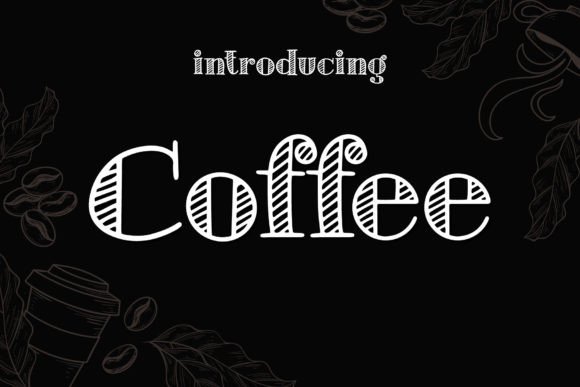
Coffee Font: The Perfect Addition to Your Creative Projects
Are you a designer or crafter looking for a unique and playful font to add to your creative projects? Look no further than the Coffee Font! This cute and fun display font is perfect for a variety of applications, from children’s themes to Halloween decorations. In this article, we’ll explore the versatility of the Coffee Font and how it can elevate your designs.
What is Coffee Font?
Coffee Font is a display font designed to add a touch of whimsy and fun to your creative projects. Its playful and cute design makes it perfect for a wide range of applications, from kids’ parties to menu events, cards, and even Halloween themes. The font’s unique design is sure to grab attention and make your projects stand out.
Uses of Coffee Font
One of the best things about Coffee Font is its versatility. Here are some ideas for using this beautiful display font:
- Children’s Themes: Coffee Font is perfect for kids’ parties, birthday cards, and other children’s-themed projects. Its playful design will delight kids and add a touch of fun to your creations.
- Menu Events: Add a touch of whimsy to your menu events with Coffee Font. Whether you’re designing a menu for a restaurant, a food truck, or a special event, this font is sure to make your offerings stand out.
- Cards: Coffee Font is a great choice for greeting cards, invitations, and other paper crafts. Its unique design will add a personal touch to your cards and make them more special.
- Halloween Themes: Coffee Font is also perfect for Halloween-themed projects, from spooky decorations to creepy crafts. Its playful design will add a touch of fun to your Halloween creations.
Benefits of Using Coffee Font
So why choose Coffee Font for your creative projects? Here are just a few benefits of using this beautiful display font:
- Unique Design: Coffee Font has a unique and playful design that will make your projects stand out. Its cute and fun design is sure to grab attention and add a touch of personality to your creations.
- Versatility: Coffee Font is versatile and can be used in a wide range of applications, from children’s themes to Halloween decorations.
Tips for Using Coffee Font
Here are a few tips for using Coffee Font in your creative projects:
- Experiment with Different Sizes: Coffee Font looks great in a variety of sizes, from small and delicate to large and bold. Experiment with different sizes to find the one that works best for your project.
- Pair with Other Fonts: Coffee Font pairs well with other fonts, such as sans-serif fonts or script fonts. Experiment with different font combinations to find the one that works best for your project.
- Use in Combination with Images: Coffee Font looks great in combination with images, such as illustrations or photographs. Use it to add a touch of personality to your images and make them more engaging.
Coffee Font is a cute and fun display font that’s perfect for a wide range of creative projects. Its playful design and versatility make it a great choice for designers and crafters looking to add a touch of whimsy to their creations. Whether you’re working on a children’s theme, a menu event, or a Halloween decoration, Coffee Font is sure to make your project stand out. So why not give it a try and see the difference it can make?